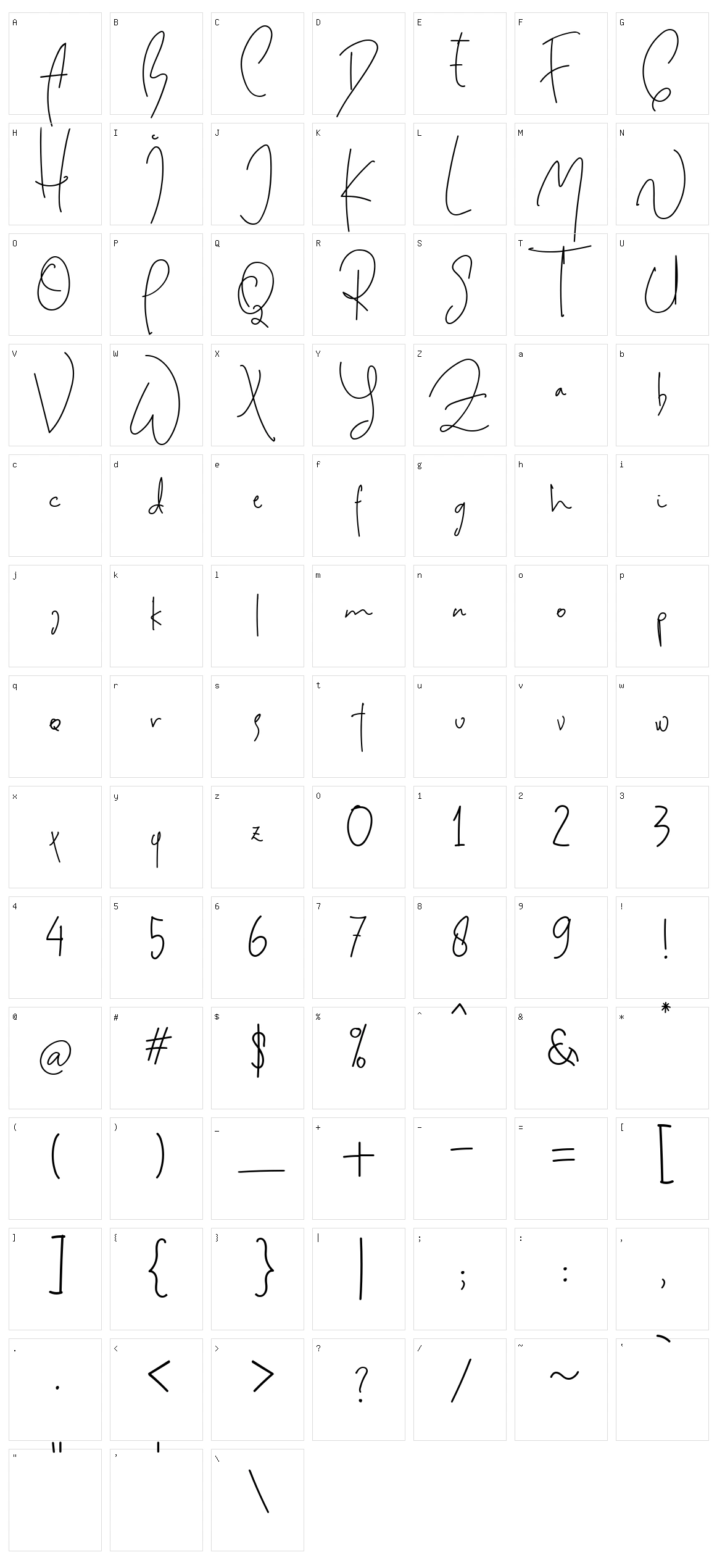
Introducing Eleonara - Handwriting Font
Eleonara is a beautiful handwriting font, can make your design project look elegant, classy and modern, this font perfect for branding, invitation, stationery, wedding designs, social media posts,
product packaging, product designs, label, photography, special events or anything.
Eleonara comes with full set of uppercase and lowercase letters, symbols and numerals